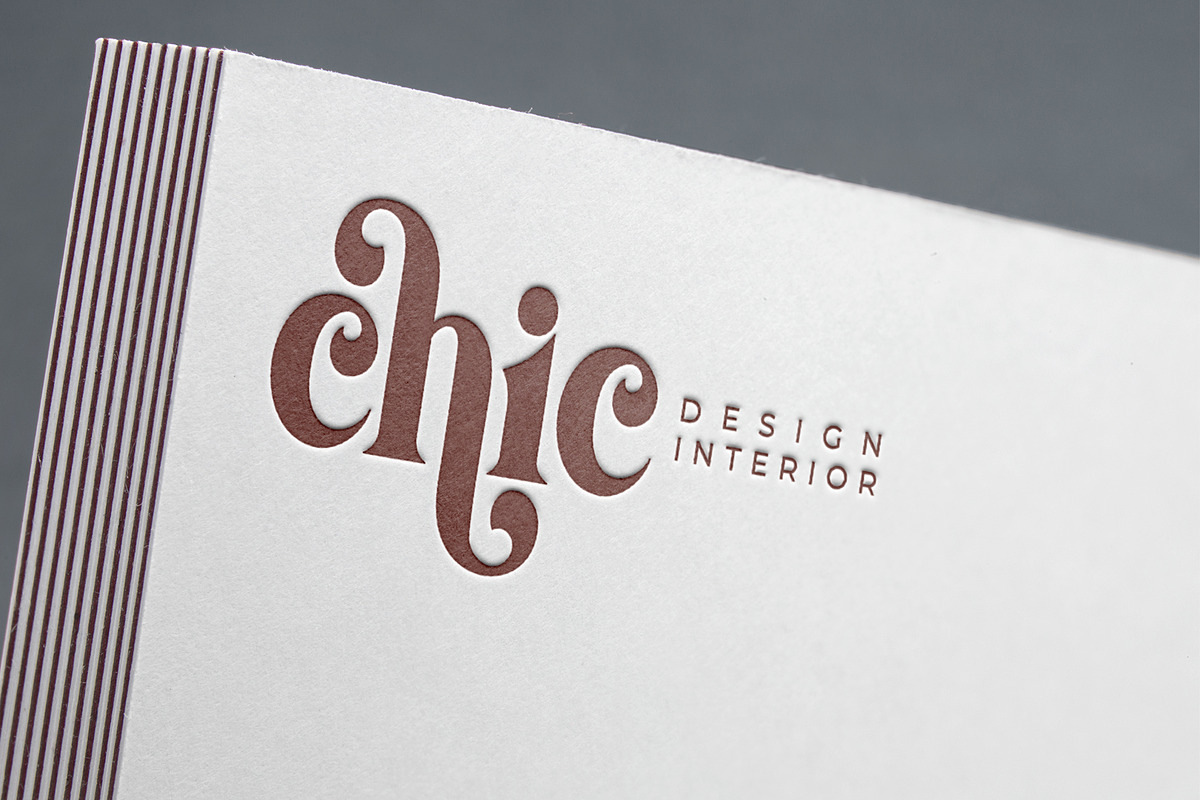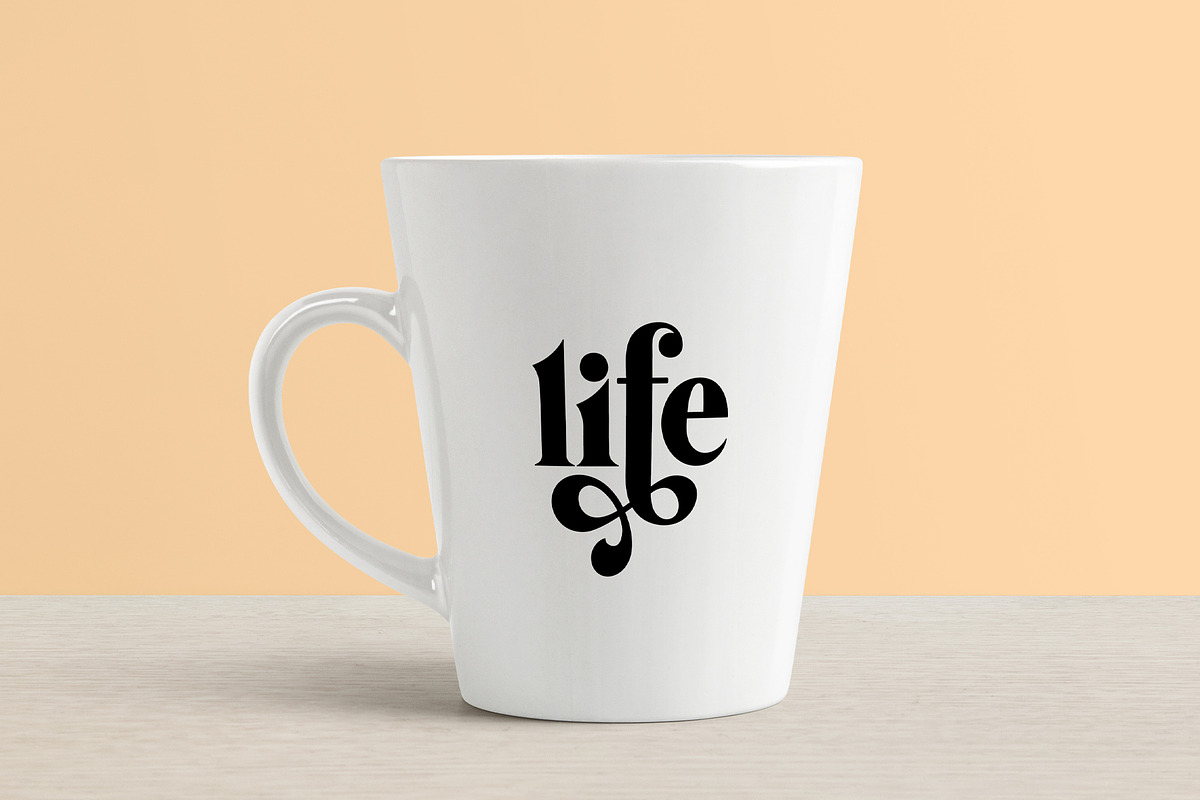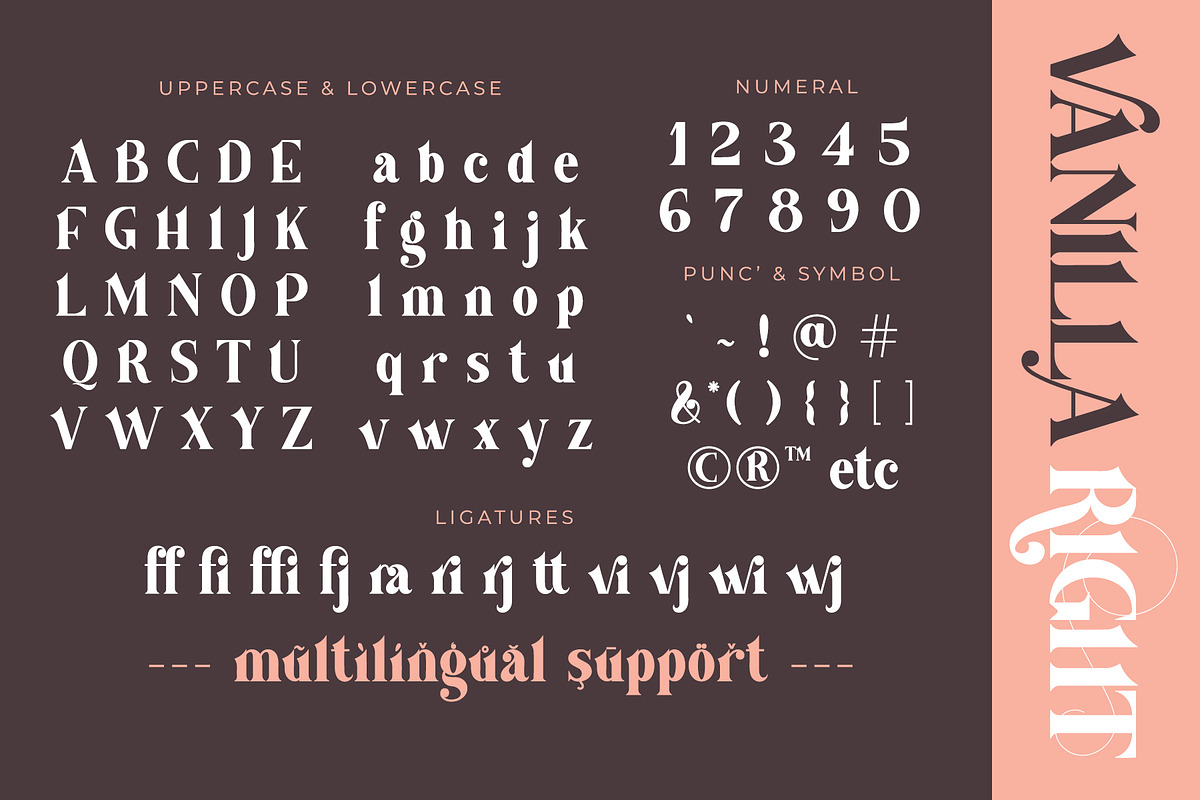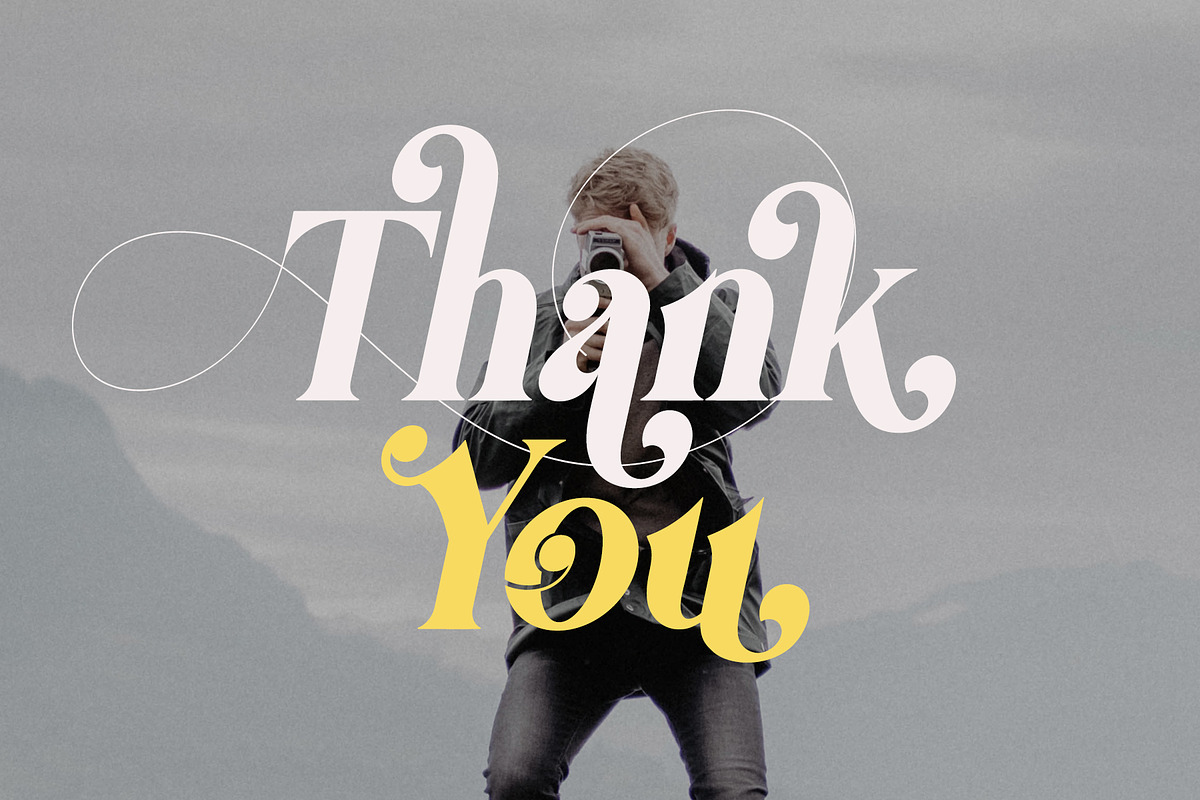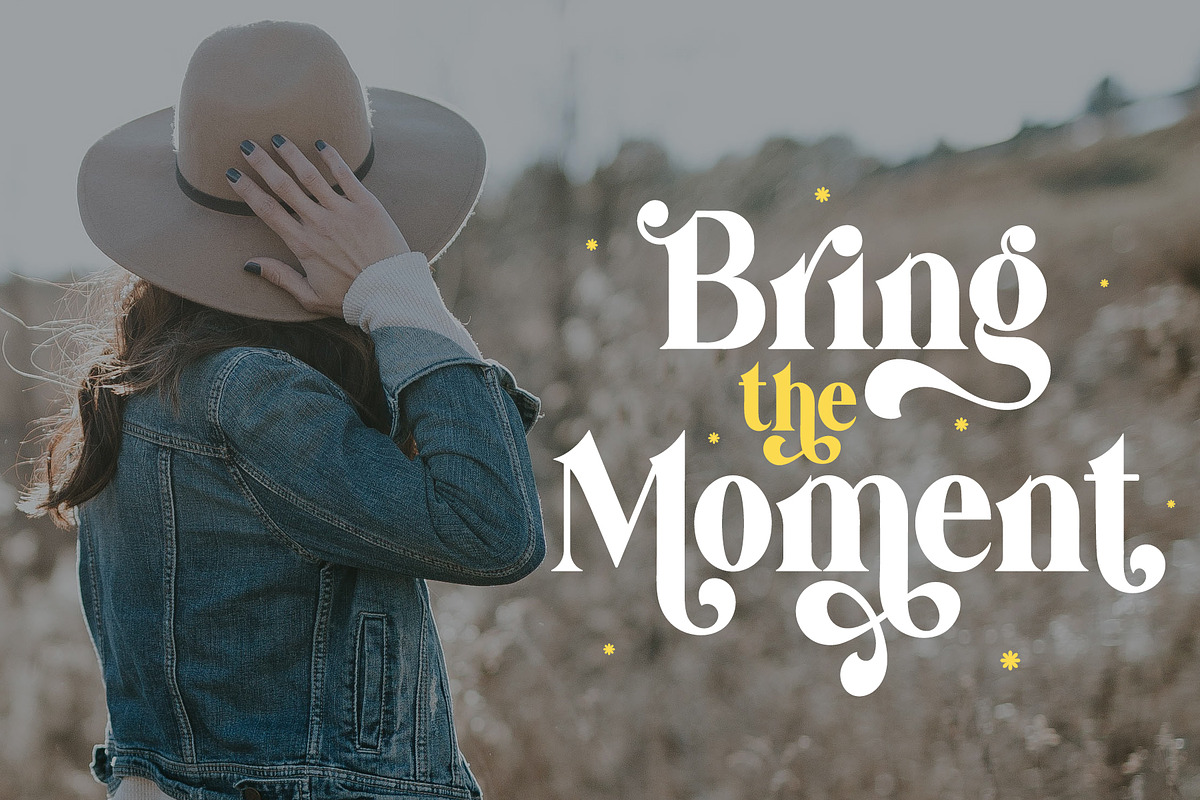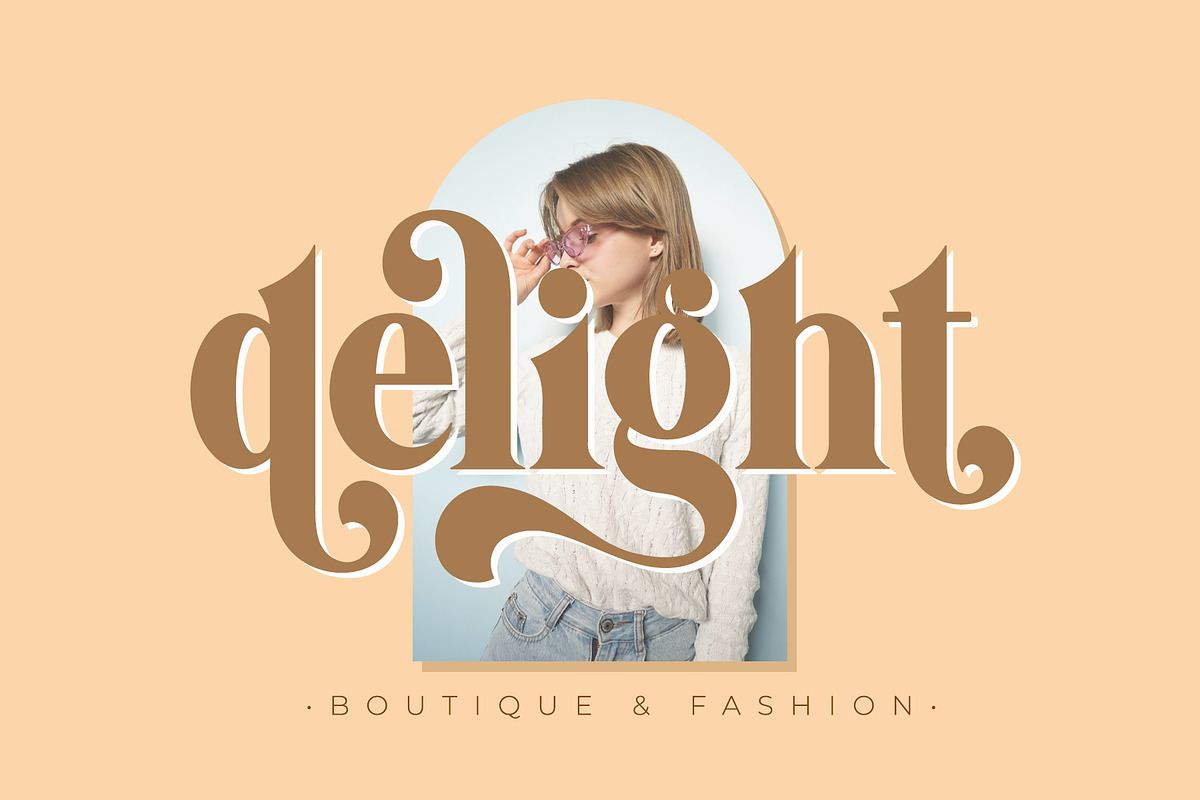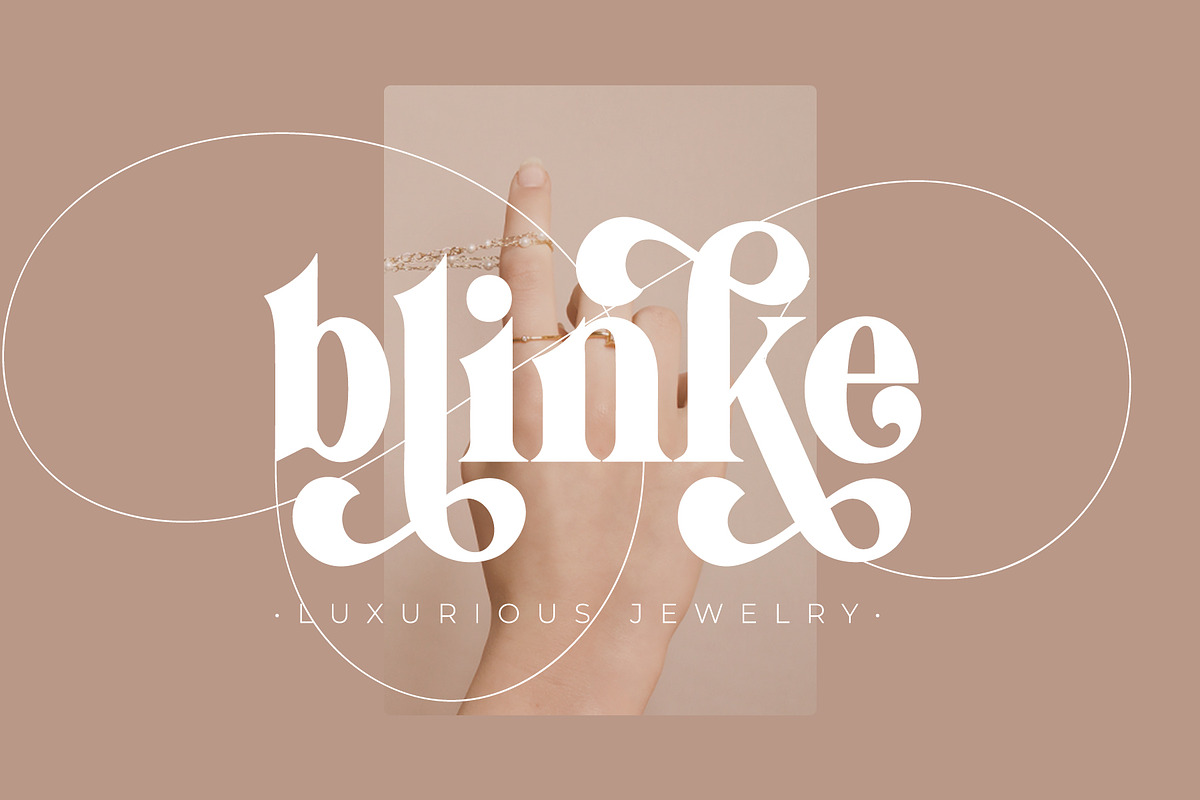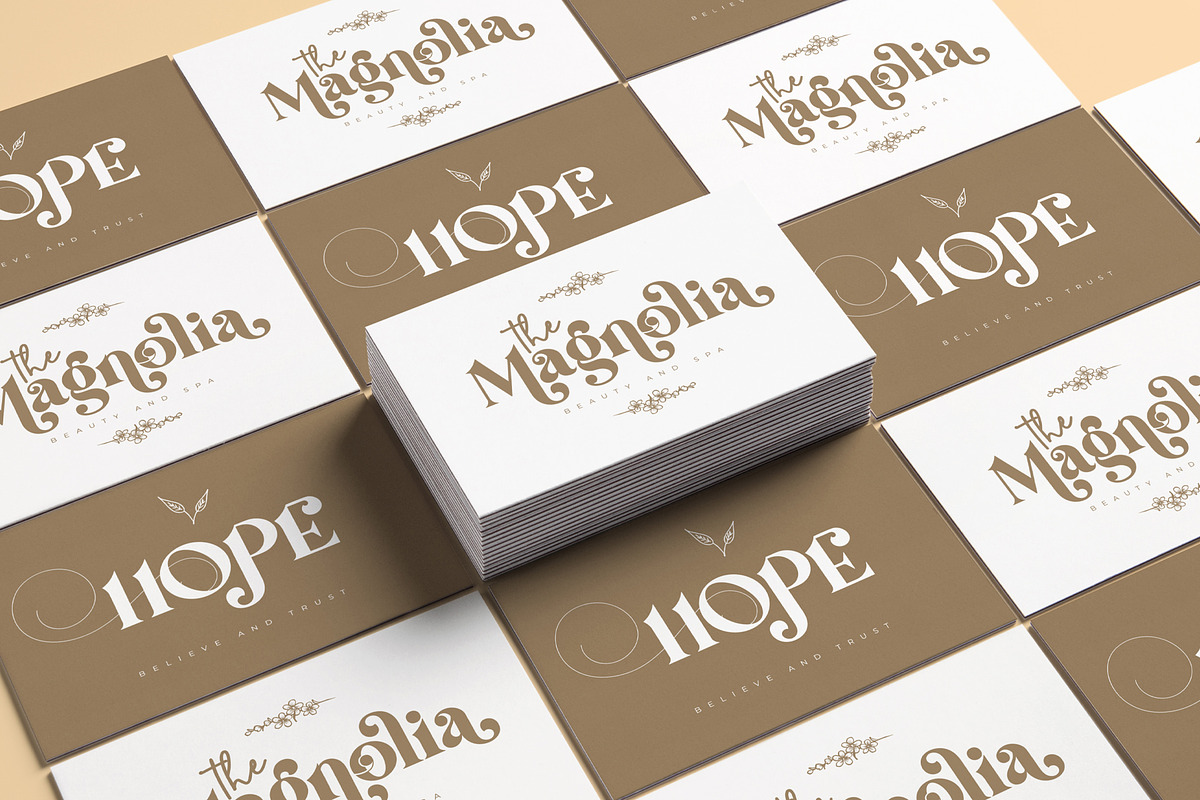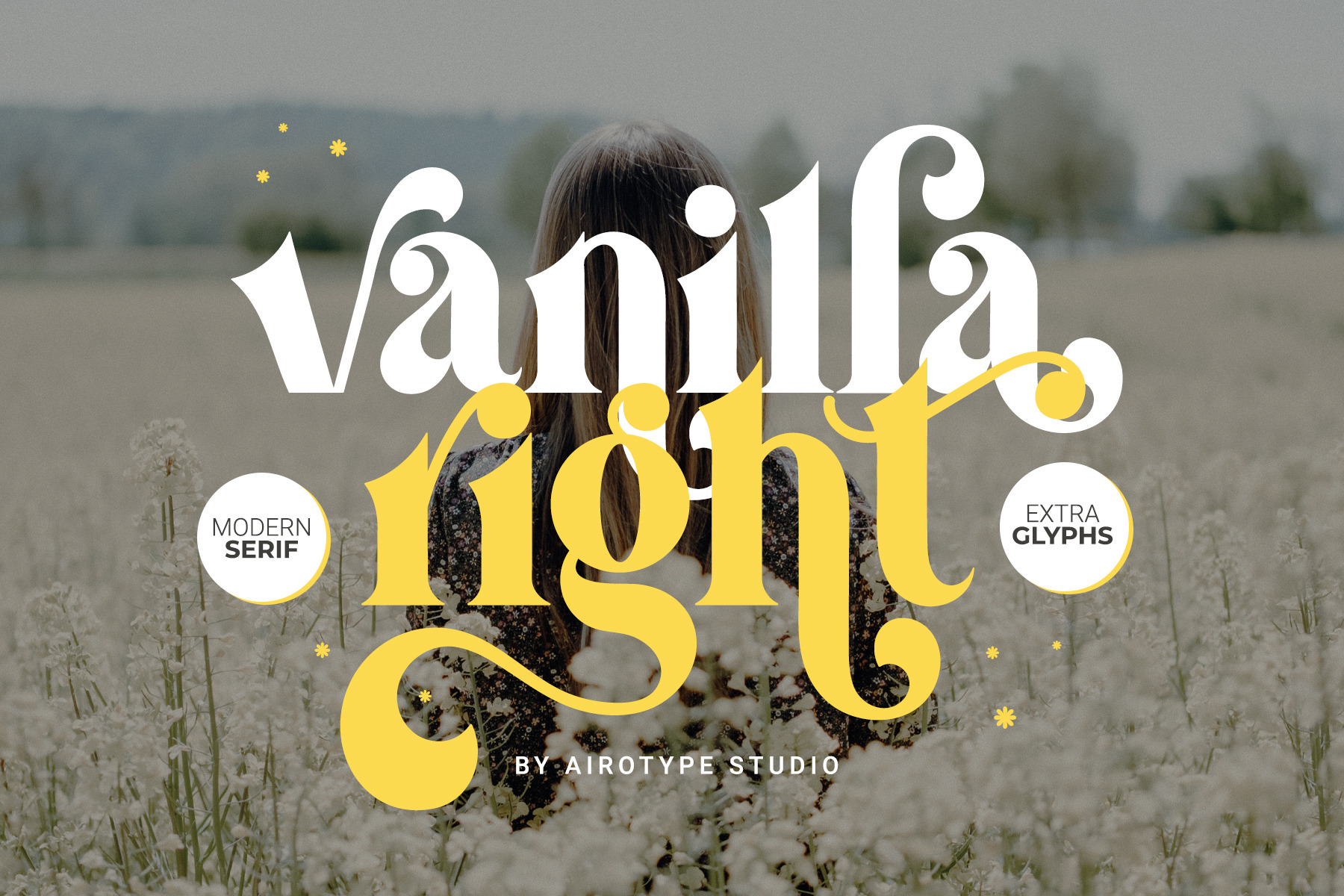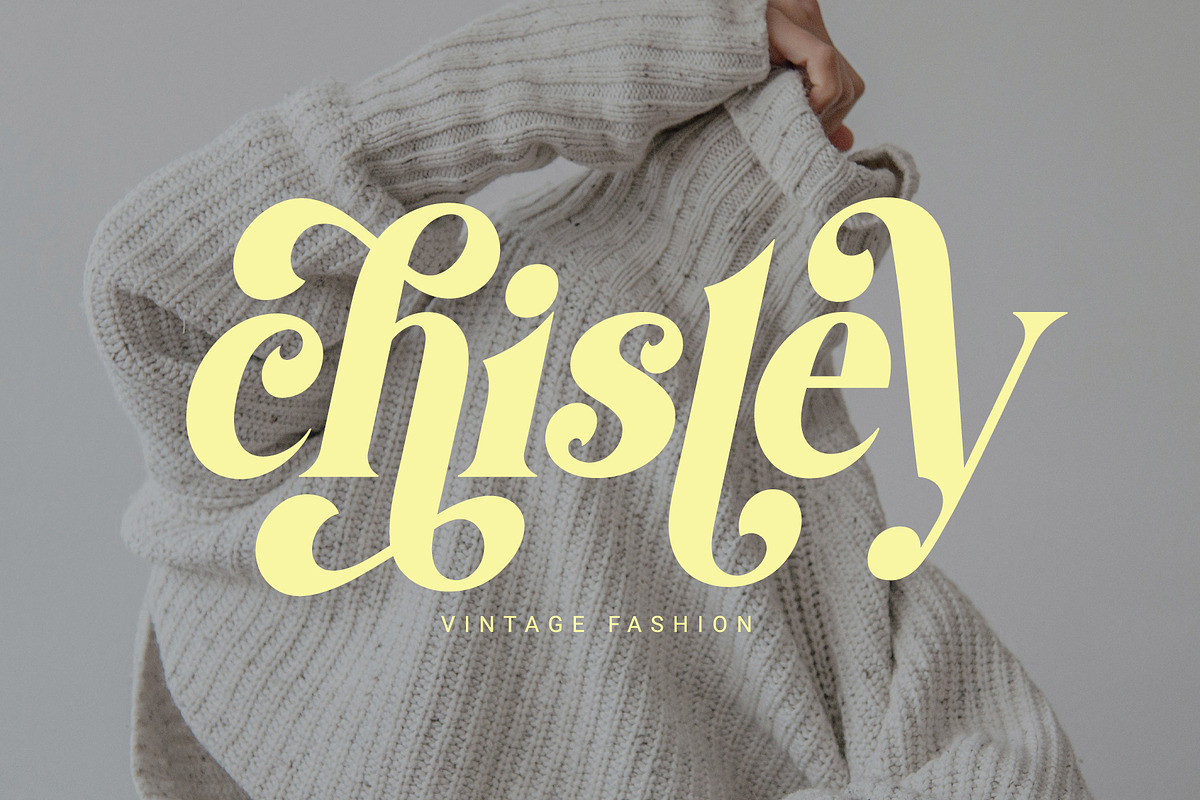
Vanilla Right - Modern Serif Font
Introducing our new modern serif font, "Vanilla Right"
Vanilla Right is modern serif font with fresh and beautiful look. It has modern and vintage look. It has extra glyphs to give more options for crafters in designing. Swirly extras will make it look classy and elegant.
Vanilla Right is perfect font for any projects, for modern or even retro vintage design, branding, logo, crafting, sticker, sublimation, wedding invitation, and many more.
- Uppercase and Lowercase (include PUA-Encoded extra glyphs)
- Most Multilingual Accent